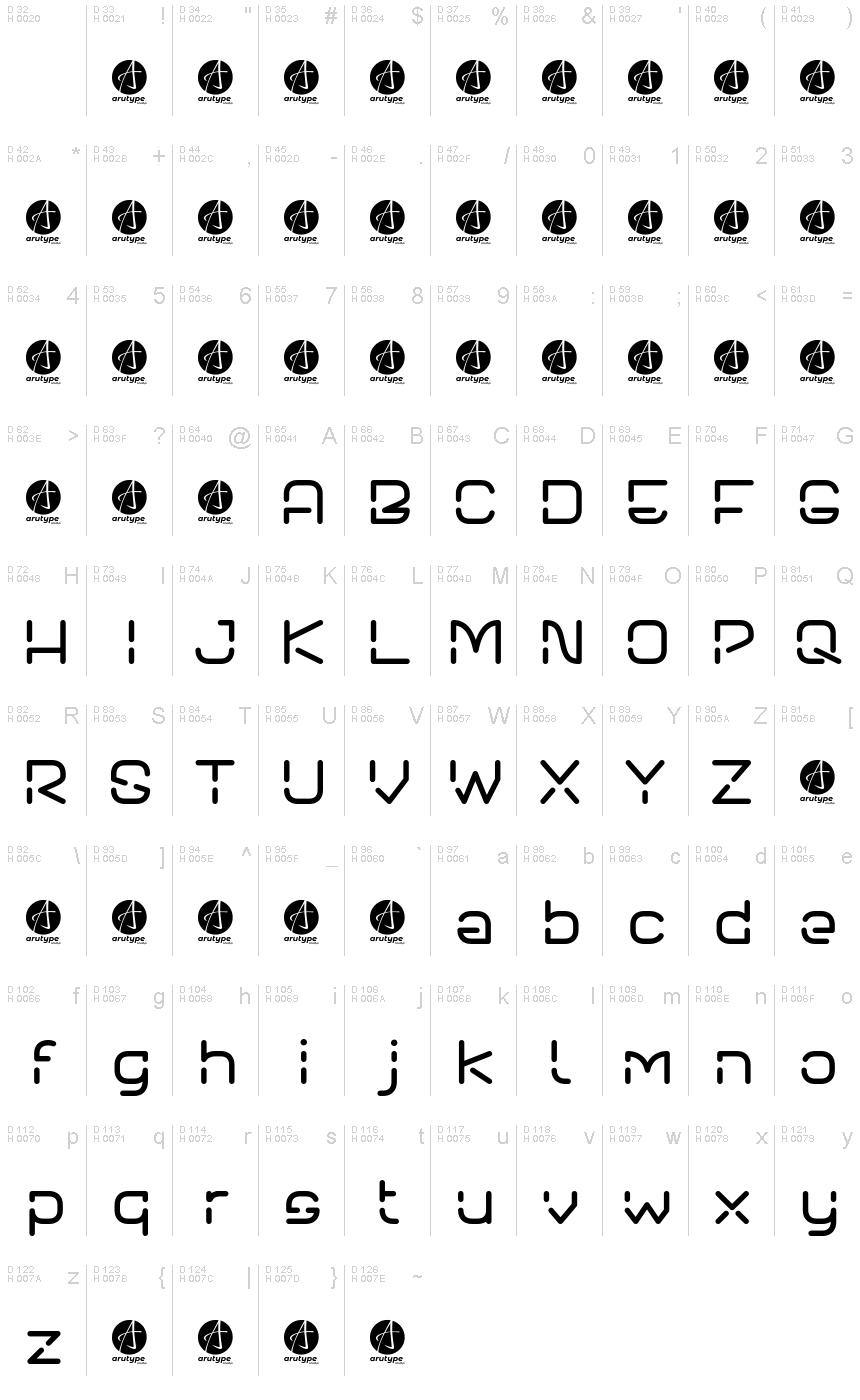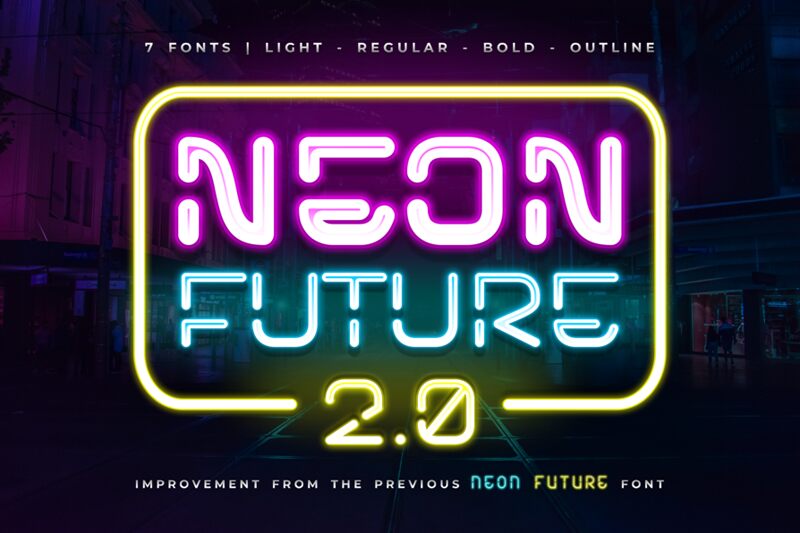
Neon Future 2.0 Demo
Neon Future 2.0 emerges as a beacon of modernity, crafted by the visionary Arutype Studio. This display font encapsulates a futuristic vibe, bringing the essence of tomorrow into every character. Its expanded form commands attention, making it an undeniable focal point in any visual composition.
The sleek contours and bold presence of Neon Future 2.0 make it ideal for projects that aim to stand out and speak to the future—think cutting-edge advertising, striking headlines, or dynamic branding elements. As designers look towards creating experiences that resonate with a forward-thinking audience, this font offers the perfect typographic vehicle for delivering messages with impact and style.